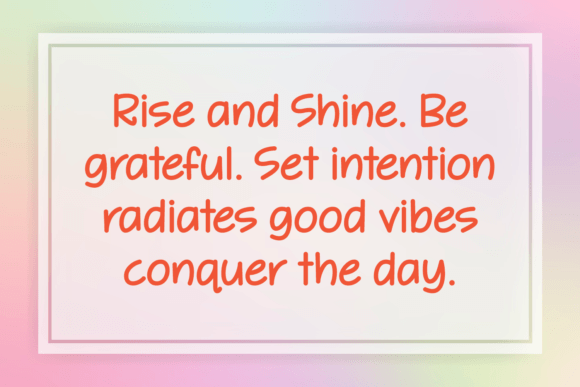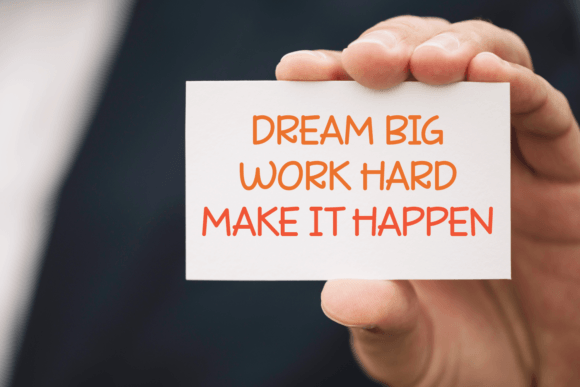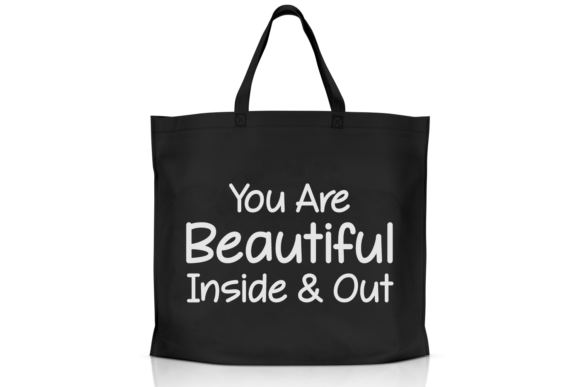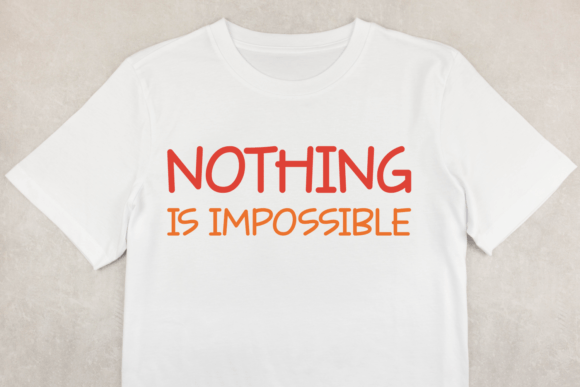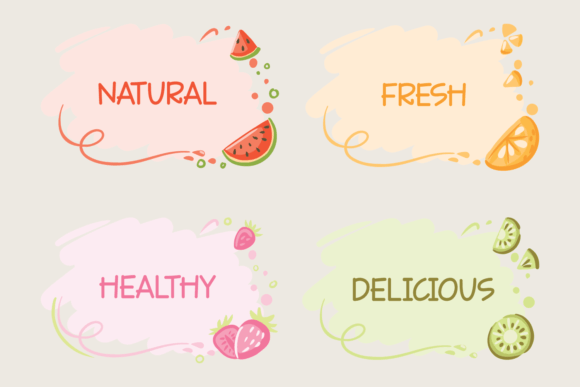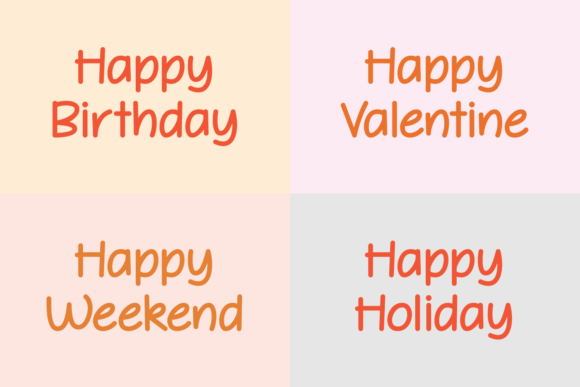
Introduction to Shine Overlay Font
Shine Overlay is a thin and simple handwritten font.
Shine Overlay works well in various design contexts, from logos and branding to social media graphics, quotes, and invitations Its sharp, legible characters make it ideal for large and small text.
Key Features of Shine Overlay Font
Why Choose Shine Overlay Font?